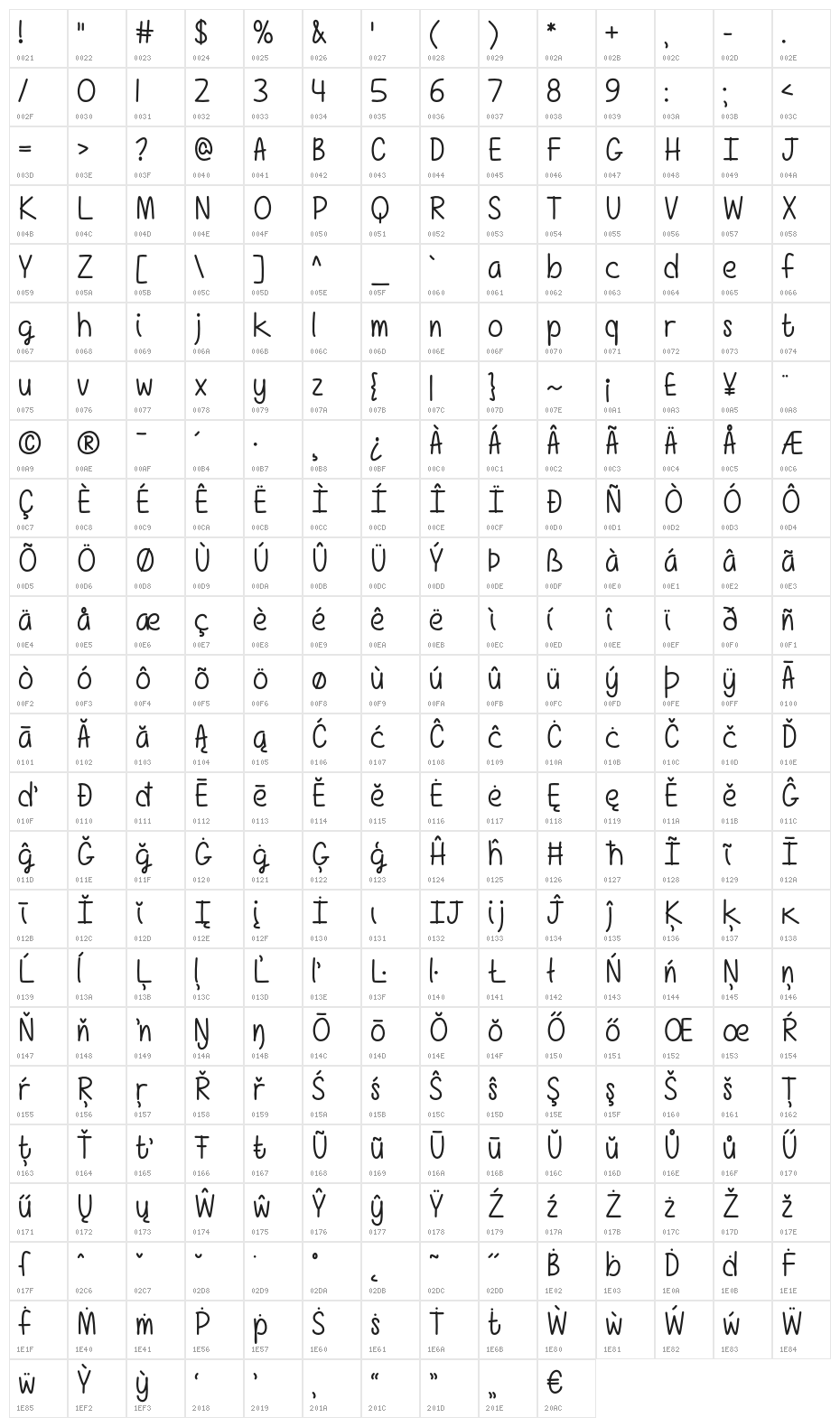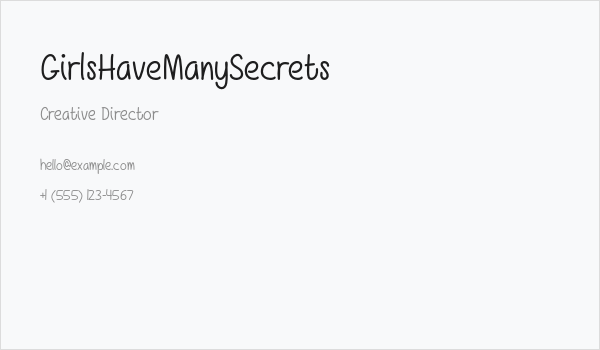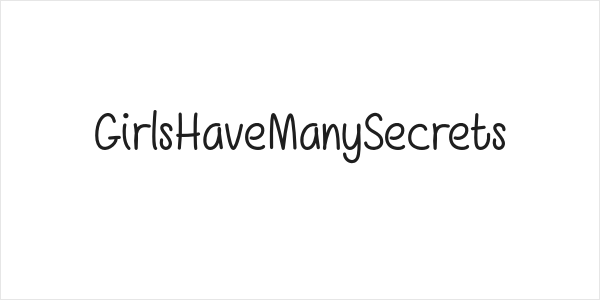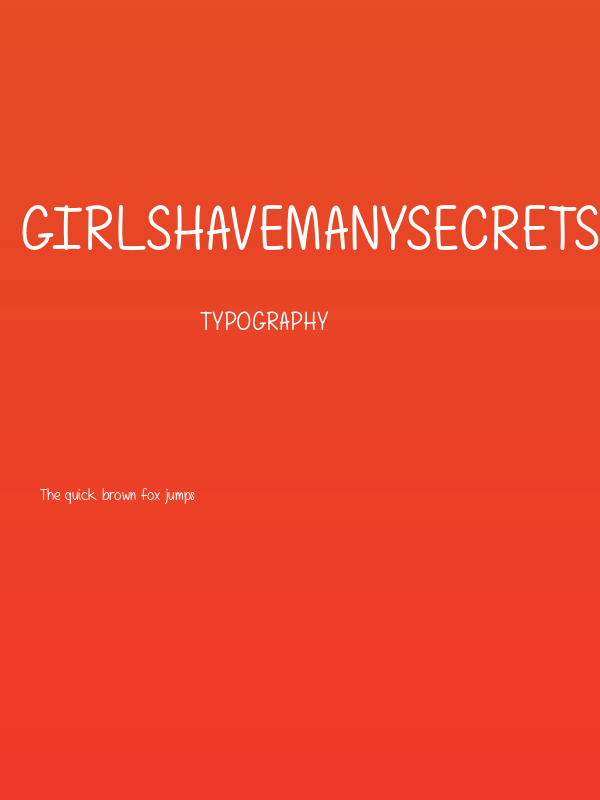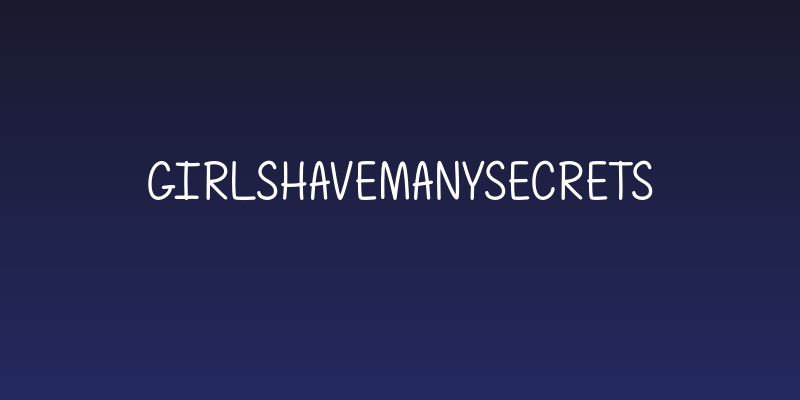
GirlsHaveManySecrets Font
GirlsHaveManySecrets Description
This playful and casual font features a handwritten style with rounded edges and a friendly appearance. The characters are slightly irregular, giving it a personal and informal touch. The uppercase and lowercase letters maintain a consistent style, with a slight tilt that adds to its charm. The numerals and special characters are designed to match the overall aesthetic, making it versatile for various uses. Its legibility and approachable design make it suitable for projects that require a warm and inviting feel.
| Overall Style | Casual |
| Use Case | Headlines, Informal text, Branding |
| Proposed Projects | Ideal for children's books, greeting cards, personal blogs, and informal branding. |